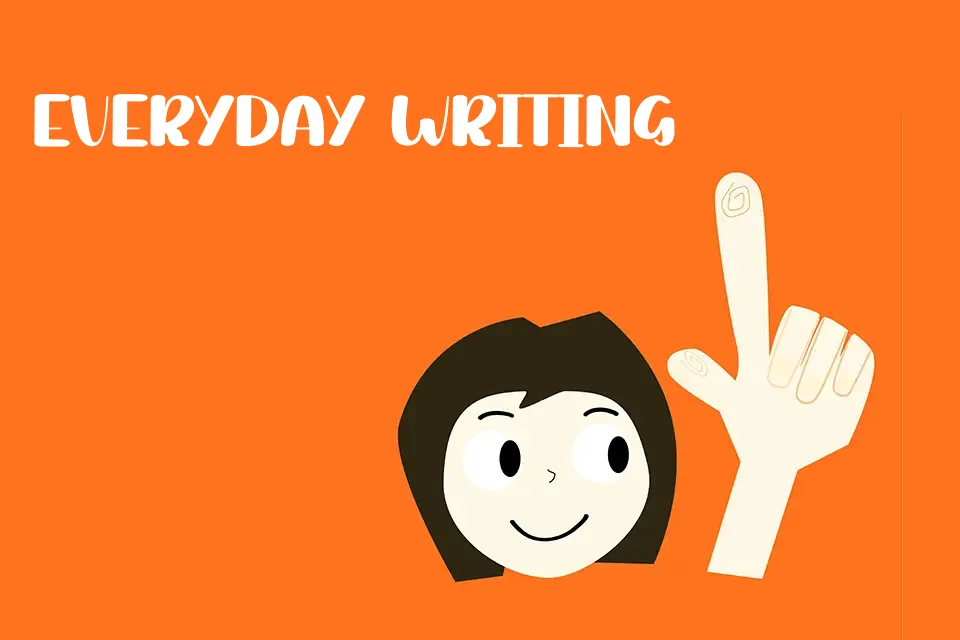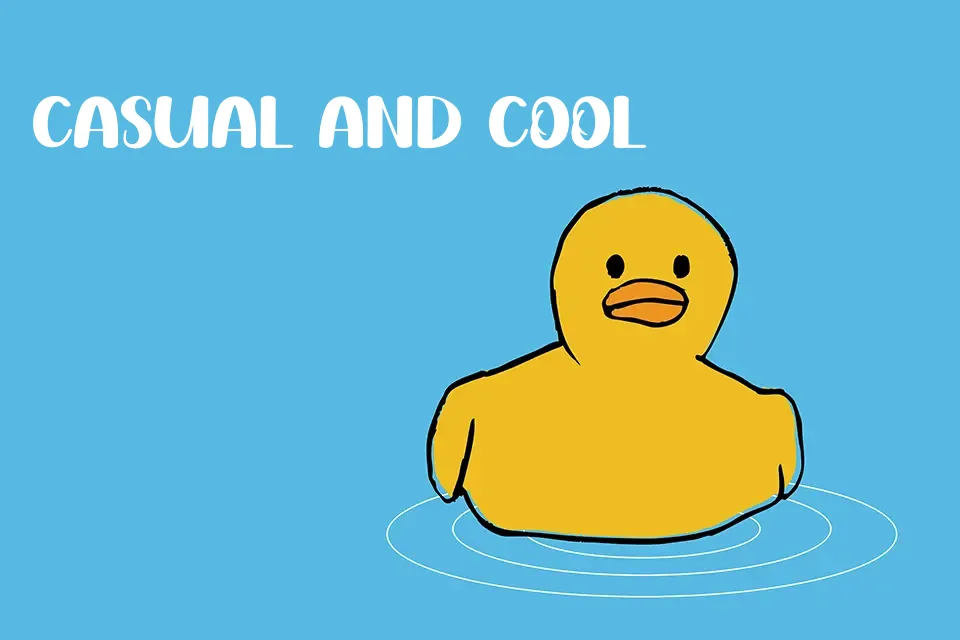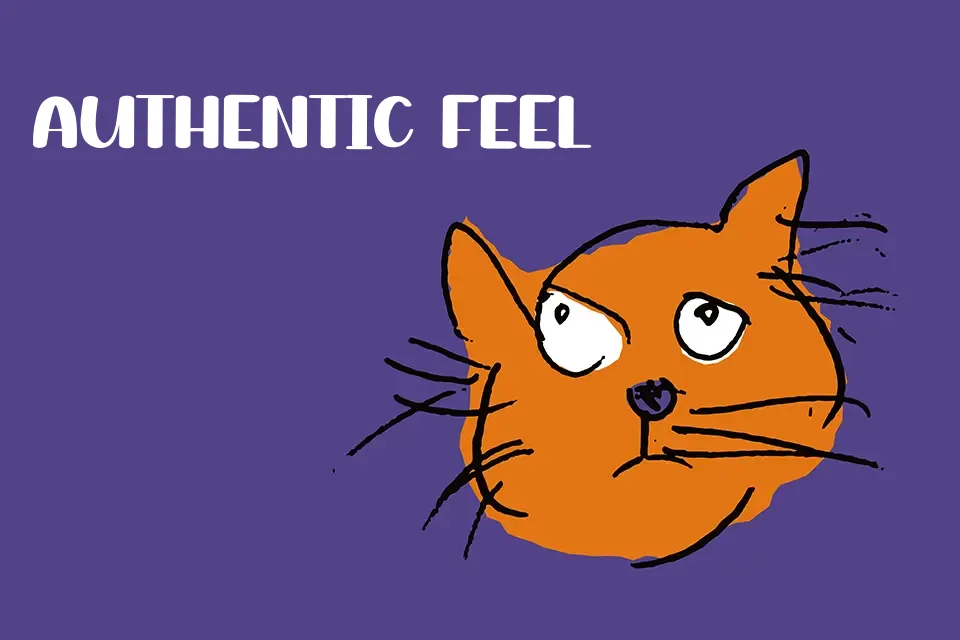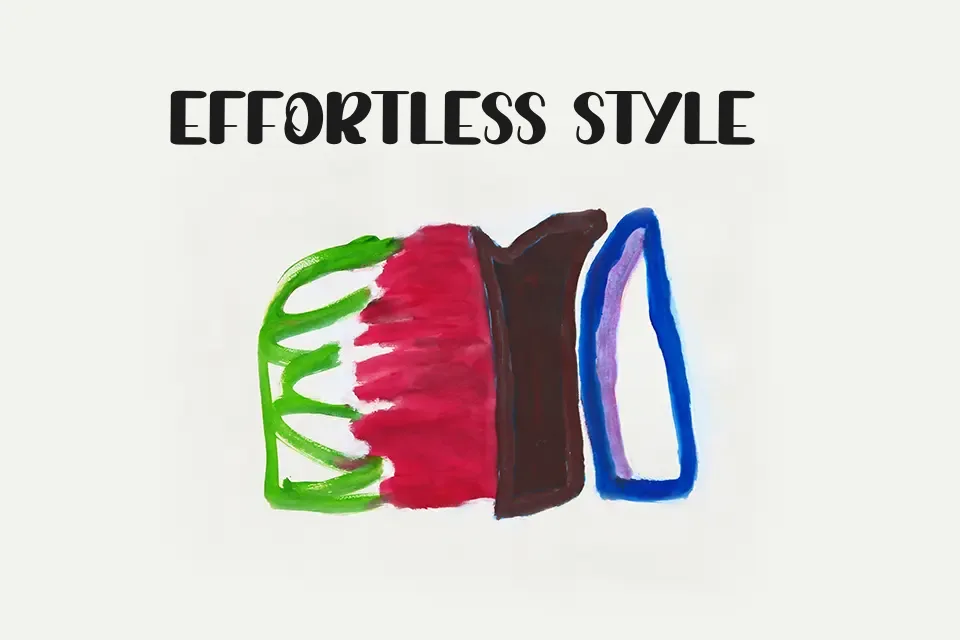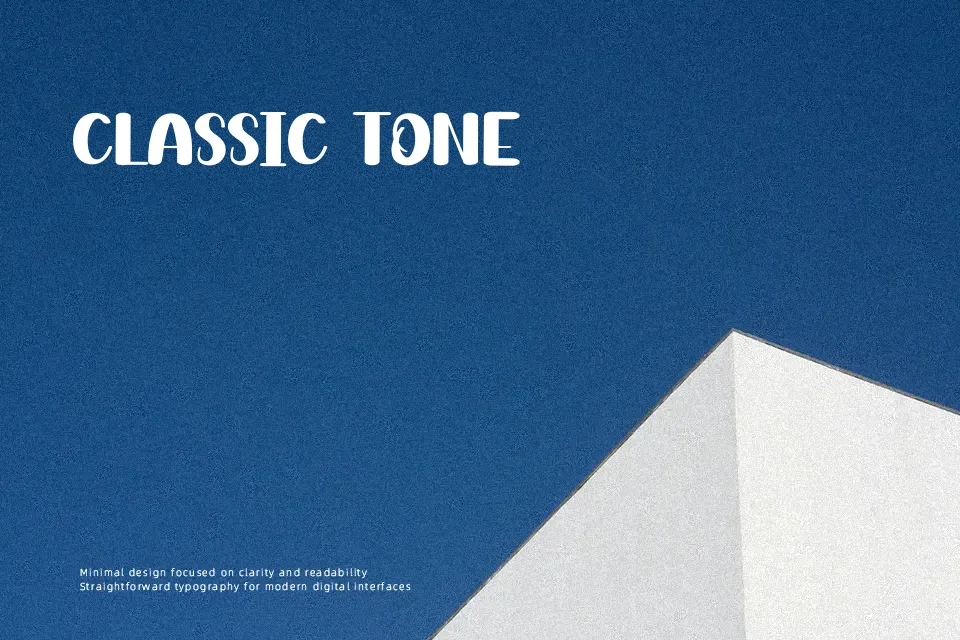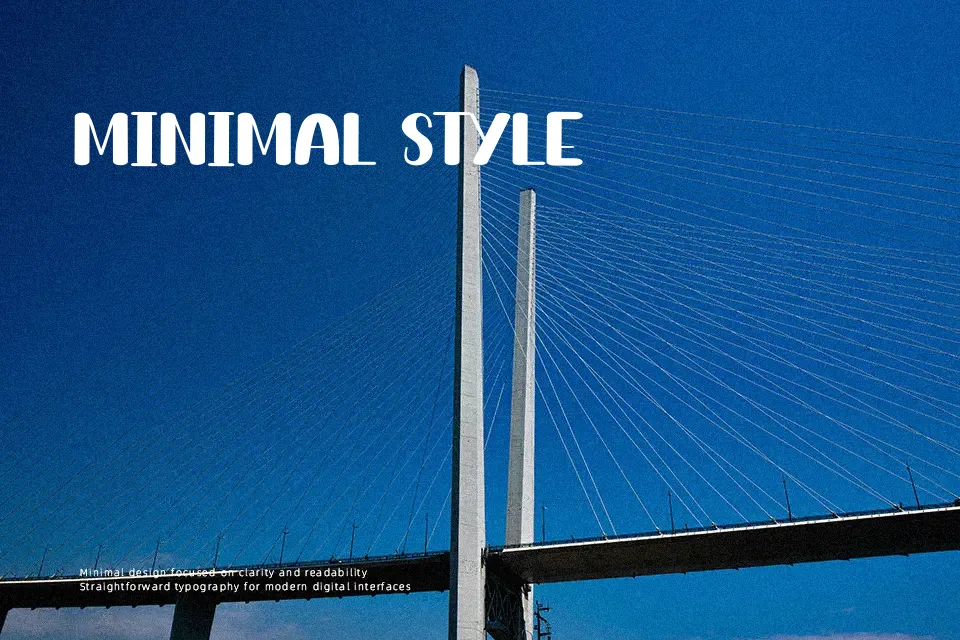
Barbie Chubby Font
Designed by Andi Moz
The strokes in Barbie Chubby are thick, bouncy, and generously spaced — the kind of lettering that feels like it was drawn with a wide-tip marker in one loose, confident sweep. Each character carries soft curves and exaggerated weight, giving it an unmistakably playful, feminine energy without tipping into overly formal territory. It works particularly well on birthday party branding, children’s book covers, and girl-oriented product packaging where personality beats precision. That said, at small sizes or in dense layouts, legibility drops noticeably — this is strictly a headline-and-accent font. Anyone needing tight kerning control or multi-weight flexibility for a full brand system will find it limiting.
Best For:- Birthday invitation headers and event signage
– Children’s product packaging and toy labels
– Feminine lifestyle brand social media posts
– Kids’ activity or coloring book covers
Not Ideal For:- Body text or any paragraph-length copy
– Corporate or professional branding
– Projects requiring multiple font weights
– Small-size applications like footnotes or UI labels
Perfect for branding, kids, and packaging, with a cute and cartoon style.